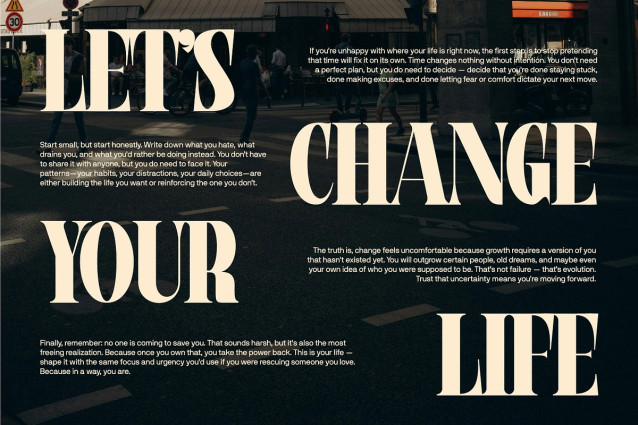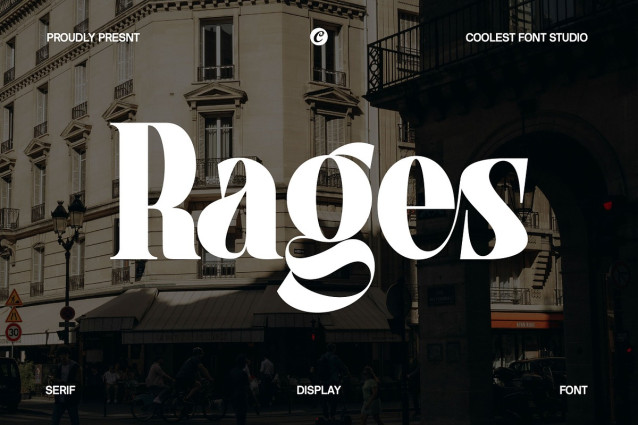
Rages Font
Rages Font is a sophisticated modern serif font designed to elevate your creative projects with class and personality. It blends timeless serif structure with contemporary aesthetics, resulting in a typeface that feels both refined and expressive.
Every detail in Rages font is crafted to create visual rhythm smooth curves, sharp endings, graceful terminals, and high-contrast strokes give this typeface a strong identity without being overpowering. It’s the perfect choice for designers looking for a font that speaks with elegance and clarity.
With its stylish alternates and expressive ligatures, Rages adapts easily to a range of creative themes from minimalist branding to editorial compositions and luxury packaging. It feels right at home on magazine covers, wedding invitations, fashion lookbooks, and modern websites.